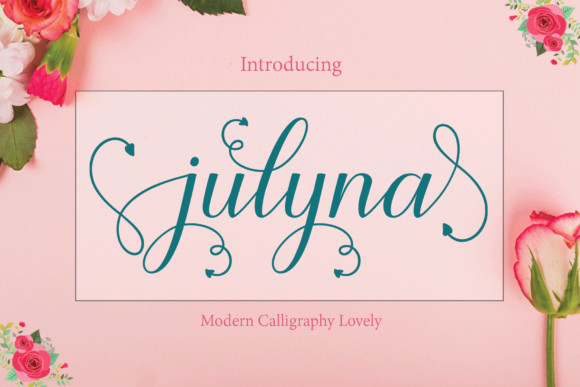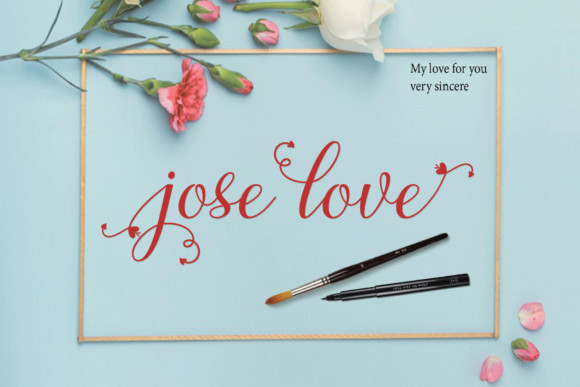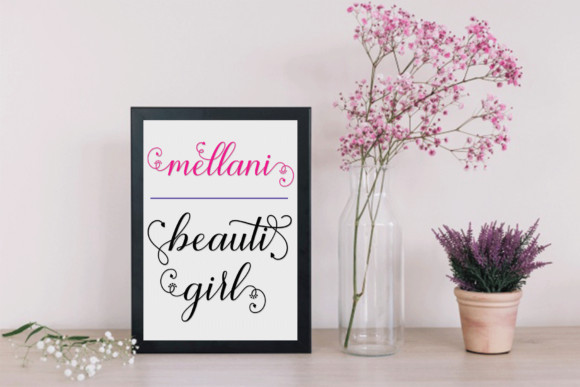
Julyna Font
Julyna simplifies elegance into one truly outstanding handwritten font. It maintains its classy calligraphic influences while feeling contemporary and fresh. Julyna is the perfect font for making original and outstanding designs.